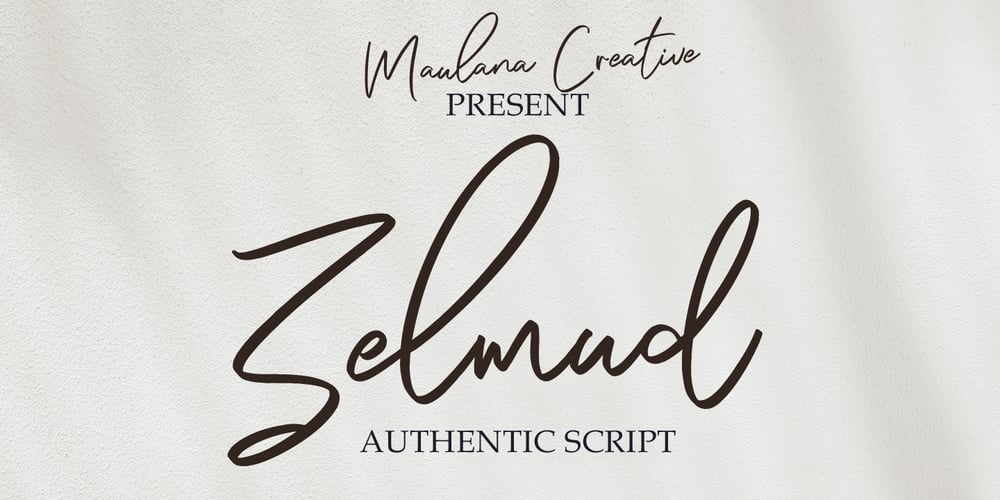
Zelmud Script Font Family was designed by Gilang Maulana and published by Maulana Creative. Zelmud Script contains 1 styles and family package options. Zelmud Authentic Script Font is an expressive signature script font. With regular felt-tip stroke, fun character with some of ligatures and extra swash. To give you an extra creative work. Zelmud Authentic Script Font support multilingual more than 100+ language. This font is good for logo design, Social media, Movie Titles, Books Titles, a short text even a long text letter and good for your secondary text font with sans or serif. Make a stunning work with Zelmud Authentic Script Font. Cheers, MaulanaCreative